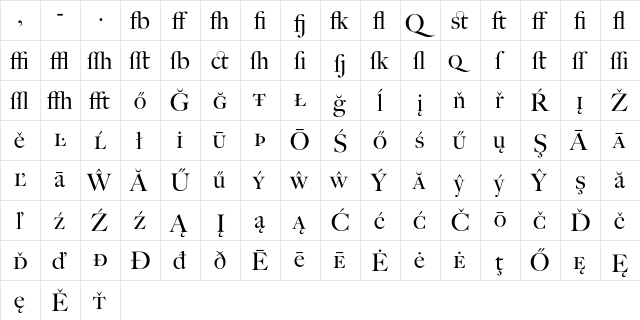
BigCaslon Regular
| Foundry | Carter & Cone Type Inc |
Design Context for BigCaslon Typeface
BigCaslon offers clean, dependable letterforms without strong stylistic allegiance, making it a practical choice for designers who need flexibility.
Pro Tip: Pair BigCaslon with a font of contrasting weight or personality to build a more expressive typographic hierarchy.